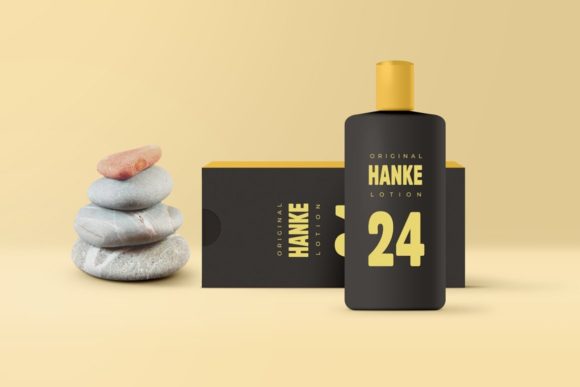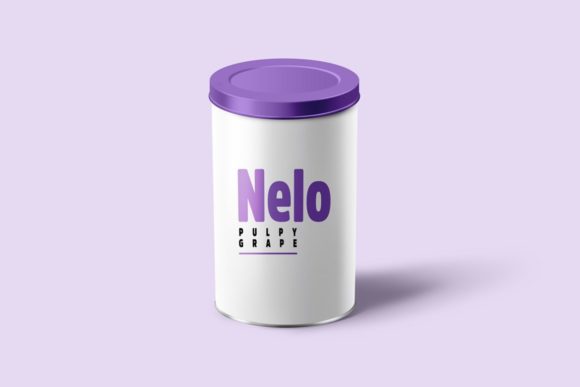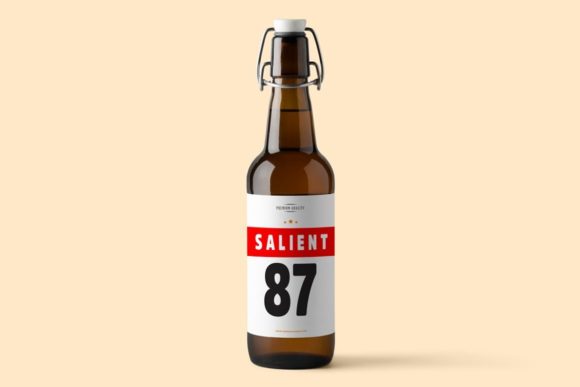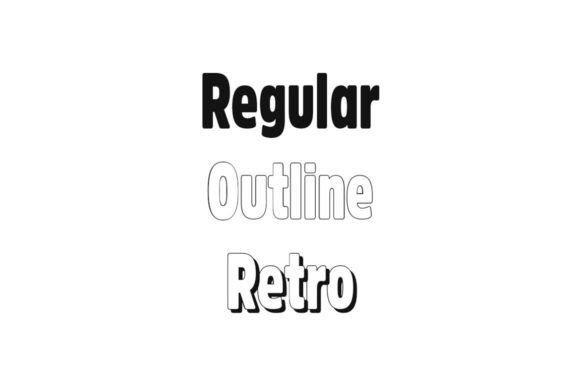
Fritz Font: A Sweet and Versatile Typeface for Designers and Crafters
In the world of typography, few fonts have managed to capture the essence of retro minimalism as perfectly as Fritz Font. Inspired by famous restaurant brands, Fritz is a sweet, rounded typeface that has become a favorite among designers and crafters alike. Its unique blend of vintage charm and modern simplicity makes it an extremely readable and versatile font that can be used in a wide range of design projects.
The Inspiration Behind Fritz Font
Fritz Font draws its inspiration from the iconic typography of restaurant brands that have become synonymous with good food and warm hospitality. The font’s creator aimed to capture the friendly, approachable feel of these brands and translate it into a digital typeface that could be used by designers and crafters to add a touch of warmth and personality to their work.
The result is a font that is both retro and modern, with a clean and minimalist aesthetic that makes it perfect for use in a variety of design projects, from logos and branding to signage and packaging.
Key Features of Fritz Font
So what makes Fritz Font so special? Here are just a few of its key features:
- Rounded and Sweet: Fritz Font features rounded edges and a sweet, friendly aesthetic that makes it perfect for use in designs where a personal touch is desired.
- Retro Minimalism: The font’s retro minimalism makes it extremely readable, even at small sizes, and gives it a timeless quality that ensures it will remain relevant for years to come.
- Versatile: Fritz Font is incredibly versatile, and can be used in a wide range of design projects, from logos and branding to signage and packaging.
Why Designers and Crafters Love Fritz Font
Designers and crafters love Fritz Font for many reasons. Here are just a few:
- Ease of Use: Fritz Font is incredibly easy to use, even for those who are new to design. Its clean and simple aesthetic makes it easy to pair with other fonts, and its readability ensures that it will be easy to read, even for those with visual impairments.
- Customization Options: Fritz Font comes with a range of customization options, including different weights and styles, making it easy to tailor the font to the specific needs of your design project.
- Unique Aesthetic: Fritz Font’s unique aesthetic sets it apart from other fonts, making it perfect for designers and crafters who want to add a touch of personality to their work.
Using Fritz Font in Your Design Projects
So how can you use Fritz Font in your design projects? Here are just a few ideas:
- Logos and Branding: Fritz Font is perfect for use in logos and branding, where its friendly and approachable aesthetic can help to create a warm and welcoming feel.
- Signage and Packaging: The font’s readability and versatility make it perfect for use in signage and packaging, where it can be used to add a touch of personality to product labels and point-of-sale displays.
- Digital Design: Fritz Font can also be used in digital design, where its clean and simple aesthetic makes it perfect for use in websites, social media graphics, and more.
In conclusion, Fritz Font is a sweet and versatile typeface that is perfect for designers and crafters who want to add a touch of personality to their work. Its retro minimalism and friendly aesthetic make it extremely readable and versatile, and its ease of use and customization options make it easy to incorporate into a wide range of design projects.
Whether you’re a seasoned designer or just starting out, Fritz Font is definitely worth checking out. So why not give it a try and see how it can help to elevate your design work?